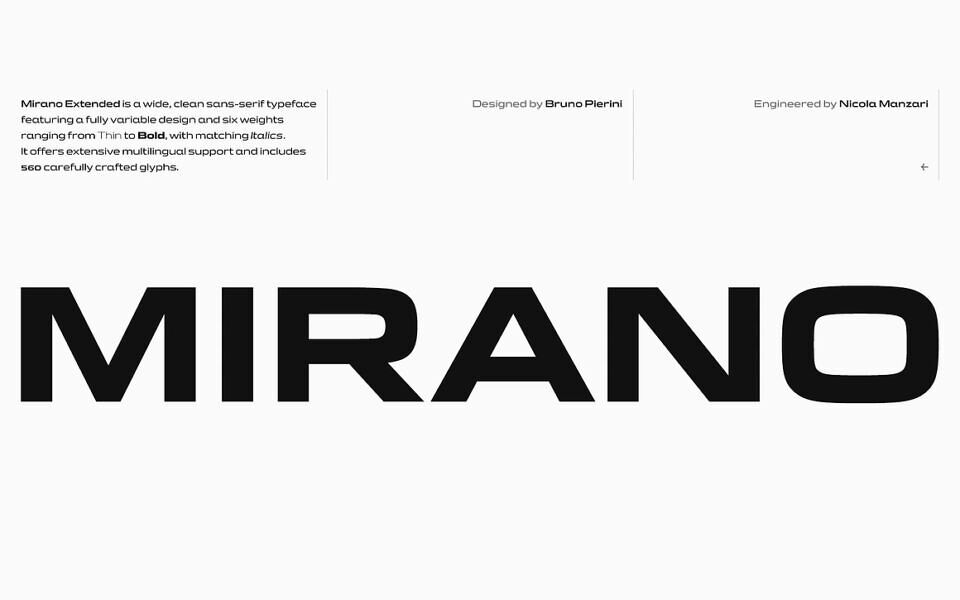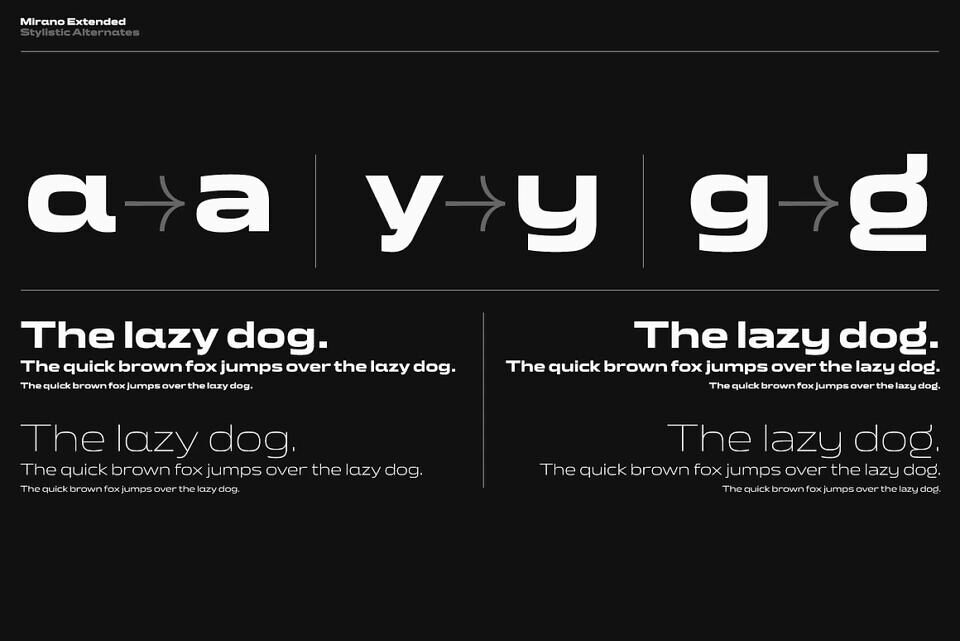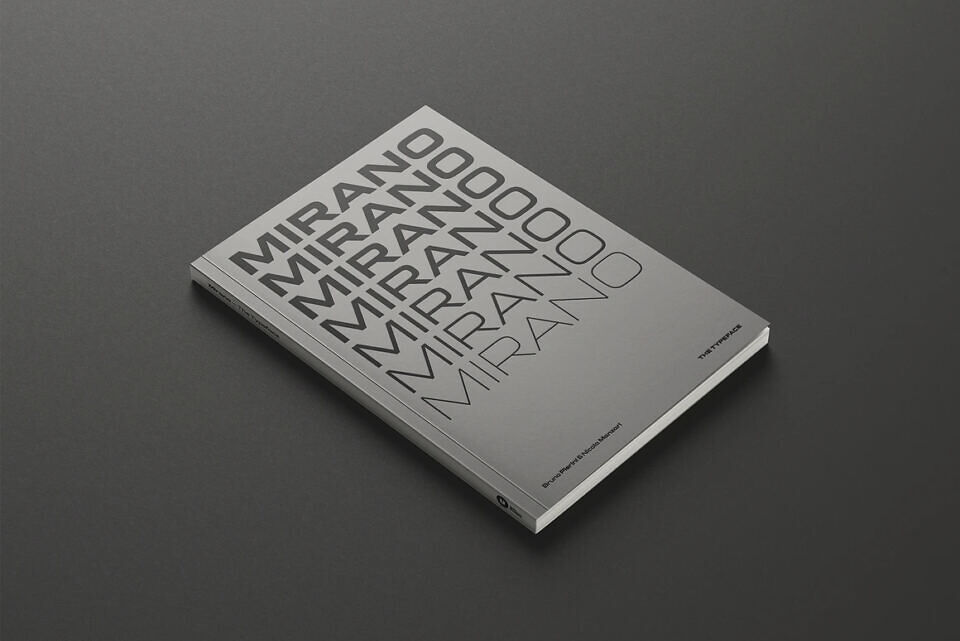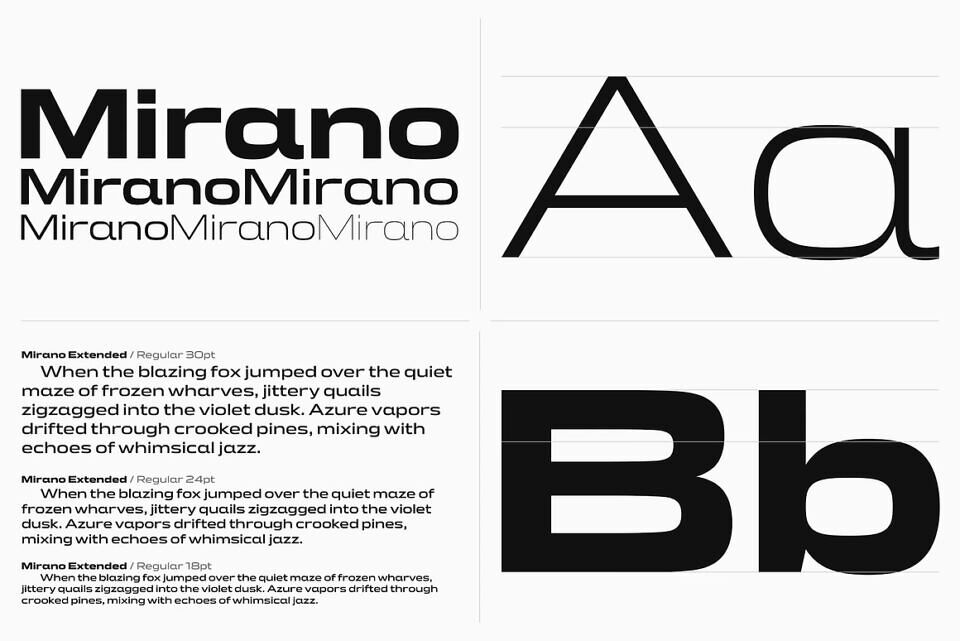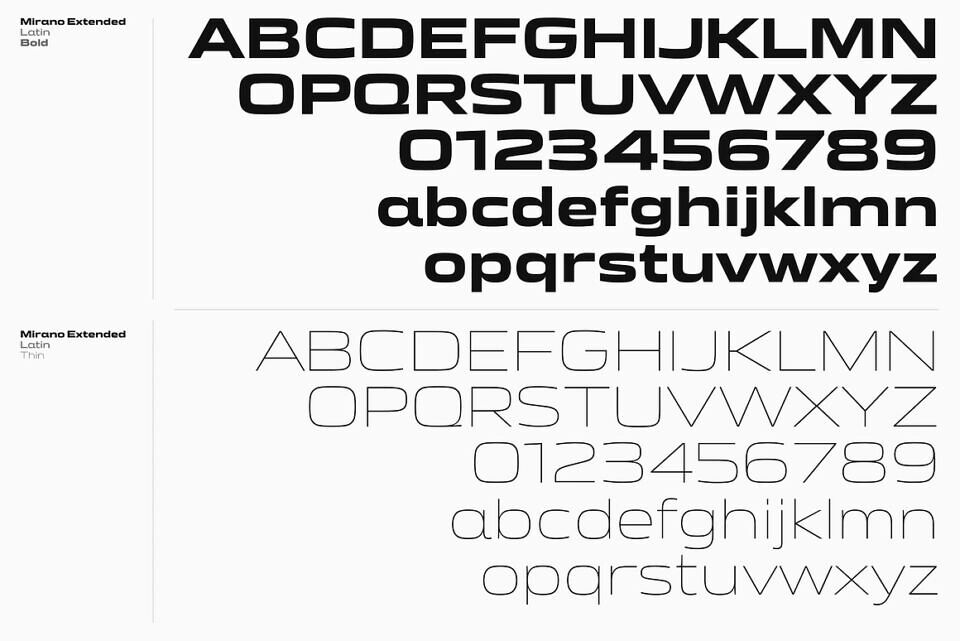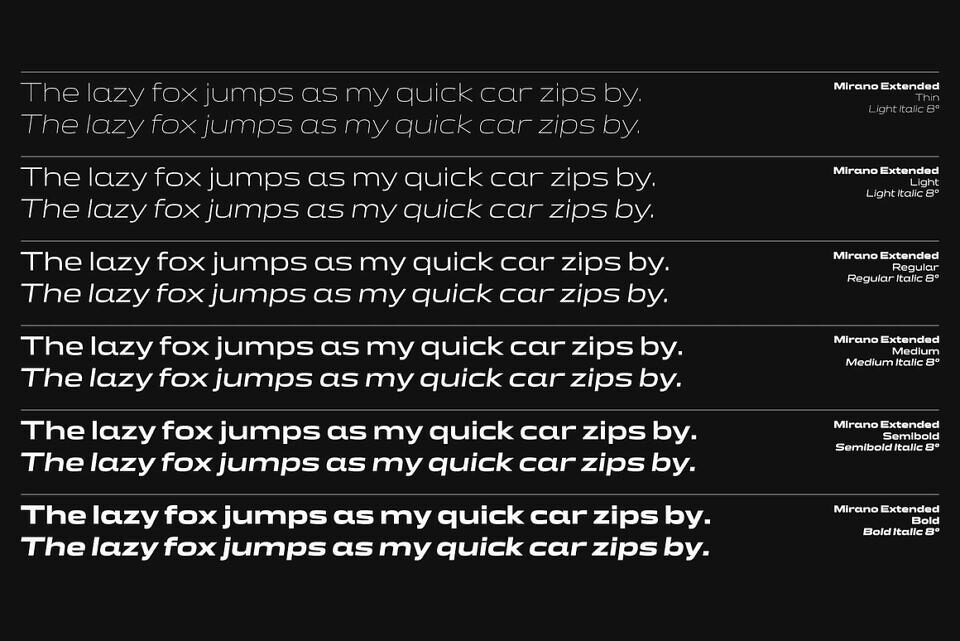
Mirano is a versatile font that blends vintage automotive flair with modern style. Inspired by a iconic German brand’s lettering, it evolves into a sleek, contemporary design suitable for branding and interfaces. Building on Eurostile’s geometric foundation, Mirano refines its logic with a broader, sharper, and cleaner aesthetic, resulting in a premium yet mechanical feel that excels in headlines and design systems.
Mirano plays across a variable weight axis, ranging from Thin to Bold, and is also released as 6 static weights for maximum compatibility. Each weight is paired with a matching italic, engineered to keep the same forward momentum and compact efficiency of the roman while adding speed and attitude.